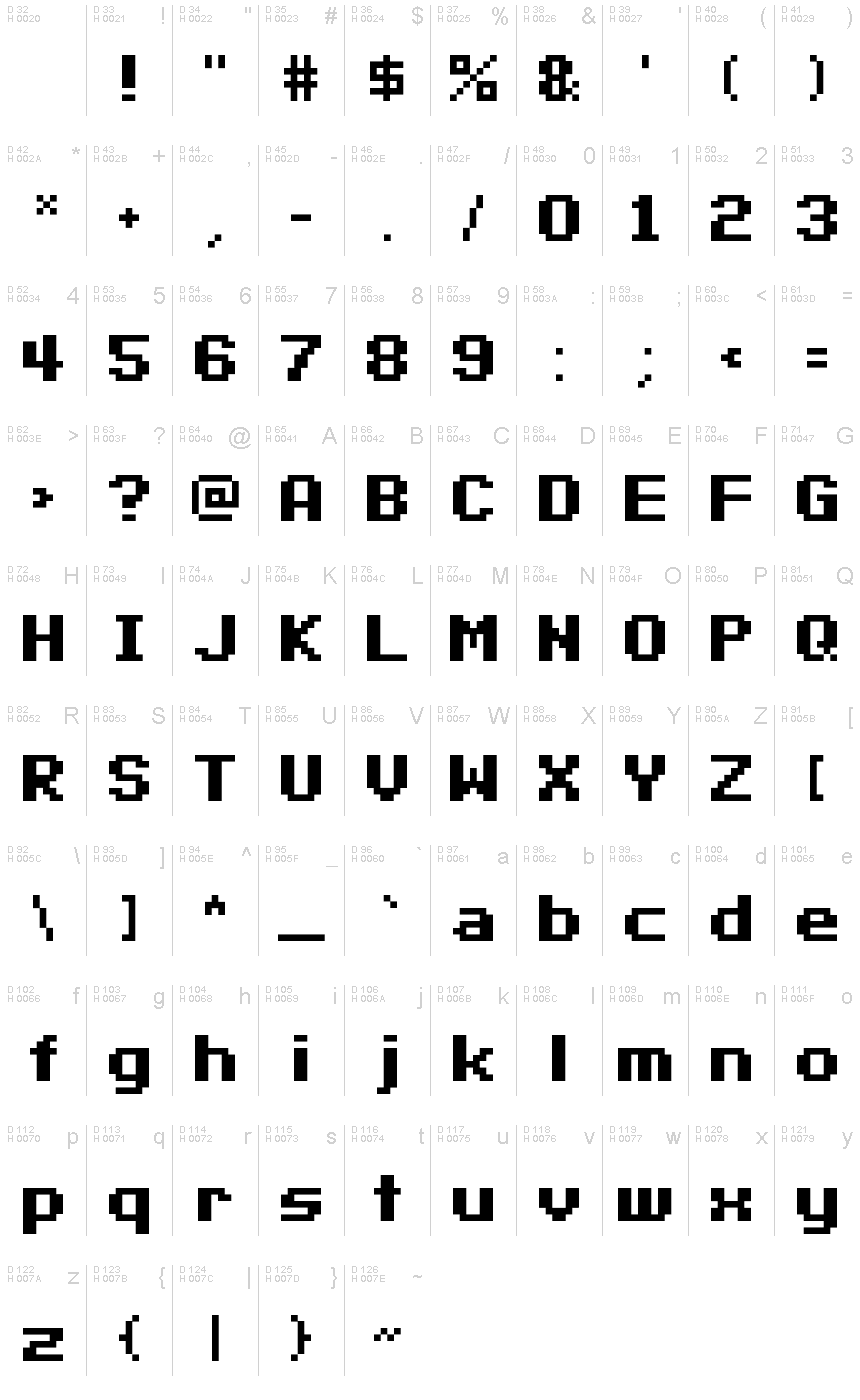
Retro Land Mayhem Regular
Retro Land Mayhem font is a bold pixel typeface designed by Dayton2949.
This is the font that was used in the "Mario vs. Donkey Kong: Mini-Land Mayhem" video game.